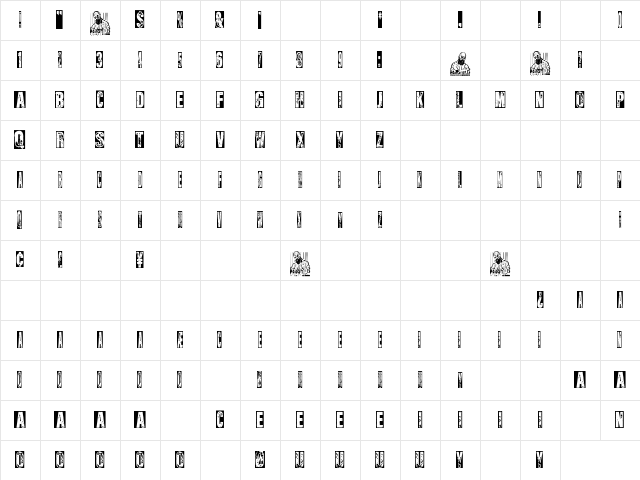
Stamp Revolution Regular
Designer: Woodcutter Manero
Design Context for Stamp Revolution
Stamp Revolution borrows the utilitarian aesthetic of stencil lettering, with its characteristic cutaways and no-frills construction lending an industrial edge.
Pro Tip: Use Stamp Revolution at large sizes on packaging, posters, or apparel where the stencil cutaways read clearly. Avoid small sizes where those gaps become visual noise.